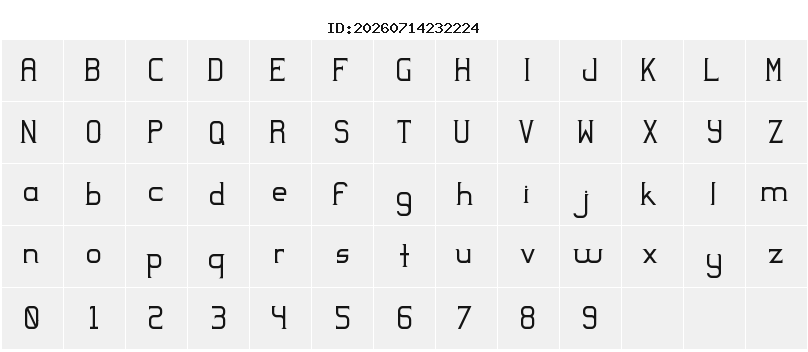
Yodeb Preview
• Font Name: Yodeb
• Full Font Name: Yodeb
About Yodeb.ttf
Yodeb.ttf is a modern, elegant sans-serif font designed for ultimate readability and visual harmony. Perfect for branding, headlines, web design, and print materials.